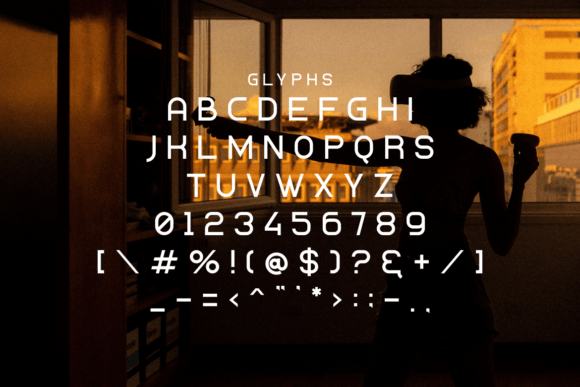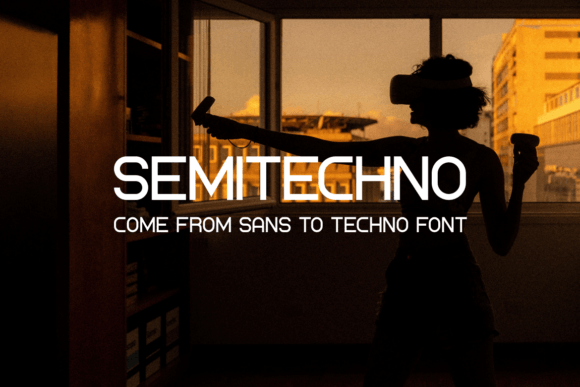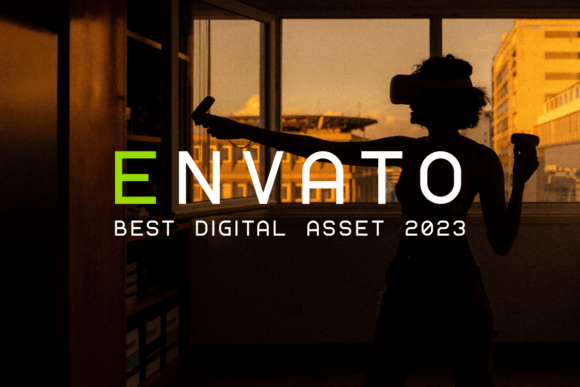
Introduction to Jhonyblen Font Font
Fonts play a crucial role in design, and the Jhonyblen Font font is a typeface that brings both character and versatility to any project. Whether you’re working on a branding project, a website, or a print design, the Jhonyblen Font font offers a unique style that can elevate your work.
Jhonyblen is a cool and futuristic-looking sans serif font.
Its modern and innovative style is perfect for robotics-related designs, sci-fi, or anything that requires a fresh and contemporary accent .
Key Features of Jhonyblen Font Font
Why Choose Jhonyblen Font Font?
The Jhonyblen Font font is more than just a typeface – it’s a design tool that helps you communicate your message with style and clarity. Its unique character set and versatile design make it suitable for a wide range of applications, from elegant invitations to bold headlines.
With its carefully crafted letterforms and balanced proportions, the Jhonyblen Font font ensures readability and visual appeal across all mediums.
What makes Jhonyblen Font font special?
The Jhonyblen Font font stands out with its unique design, exceptional readability, and versatility across various design applications.